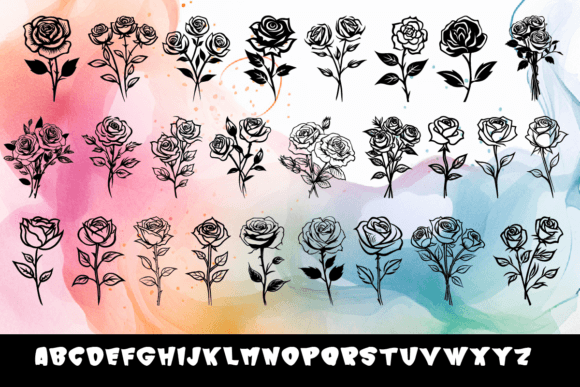
Introducing Happiness Rose Font: Add a Touch of Joy to Your Designs
Are you looking for a unique and charming digital product to elevate your designs and add a touch of joy to your projects? Look no further than the Happiness Rose Dingbats Fonts! This delightful font set is designed to bring a sense of happiness and whimsy to your creations, making it perfect for designers, crafters, and anyone looking to add a romantic and elegant touch to their work.
What is Happiness Rose Font?
The Happiness Rose Font is a one-of-a-kind digital product that consists of 26 lovely symbols, each representing a letter from A to Z, adorned with delicate rose motifs. These beautiful dingbats fonts are designed to add a touch of romance and elegance to your designs, making them ideal for a wide range of projects, including greeting cards, invitations, posters, and more.
Key Features of Happiness Rose Font
• Unique and Charming Design: Each letter from A to Z is carefully designed with a delicate rose motif, making it perfect for adding a touch of whimsy and romance to your designs.
• 26 Lovely Symbols: The font set includes 26 symbols, one for each letter of the alphabet, ensuring you have a wide range of options for your designs.
Uses of Happiness Rose Font
The Happiness Rose Font is versatile and can be used in a variety of projects, including:
• Greeting Cards: Add a touch of elegance and romance to your greeting cards, making them perfect for special occasions like weddings, anniversaries, and Valentine’s Day.
• Invitations: Create beautiful and unique invitations for parties, weddings, and other events.
• Posters: Add a touch of whimsy and romance to your posters, making them perfect for advertising, promoting events, or simply adding a decorative touch to your walls.
• Stationery: Use the Happiness Rose Font to create beautiful stationery, including letterheads, journals, and notebooks.
Benefits of Using Happiness Rose Font
By using the Happiness Rose Font, you can:
• Add a Touch of Romance and Whimsy: Bring a sense of joy and elegance to your designs, making them perfect for special occasions.
• Stand Out from the Crowd: Use a unique and charming font that will set your designs apart from others.
• Save Time: With a ready-made font set, you can save time and effort in creating your own designs from scratch.
The Happiness Rose Font is a charming digital product that can add a touch of joy and elegance to your designs. With its unique and delicate rose motifs, this font set is perfect for designers, crafters, and anyone looking to create beautiful and romantic designs. Download now and spread happiness with these beautiful rose-themed symbols!